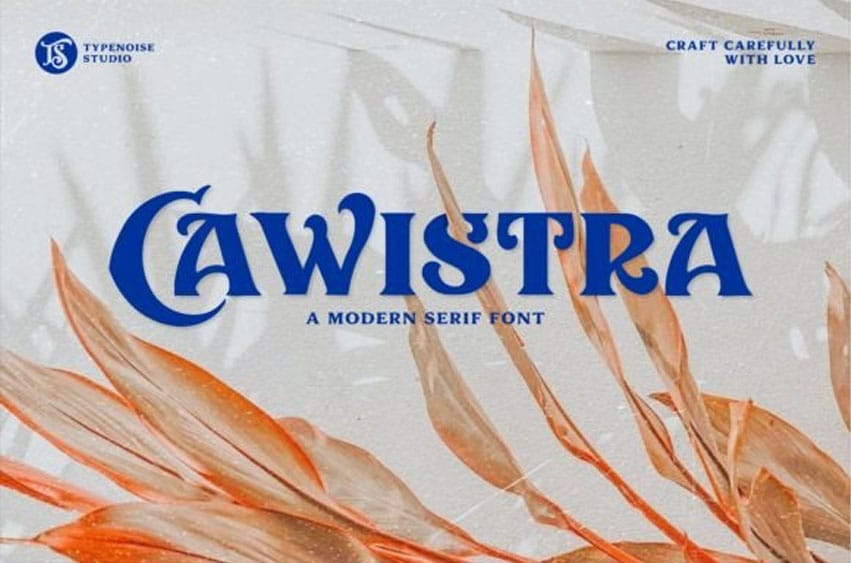
Cawistra Font is a modern serif font. Its thick curves give an 80s groovy vibe with the serifs bringing it slightly back to traditional Cawistra fits perfectly into those nostalgic moodboards and vintage logos.
It comes with a unique lower and uppercase plus numbers, punctuation & alternates.